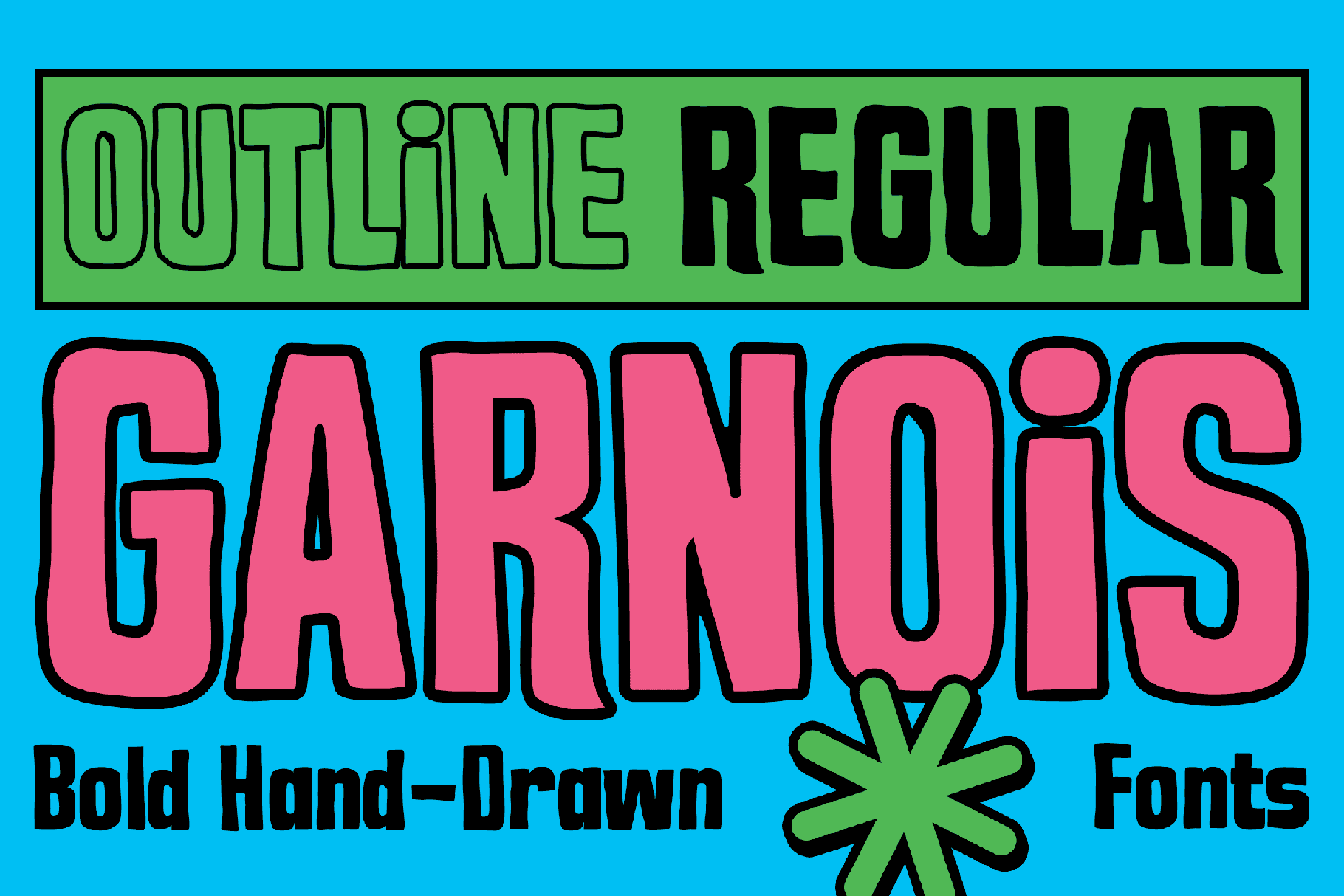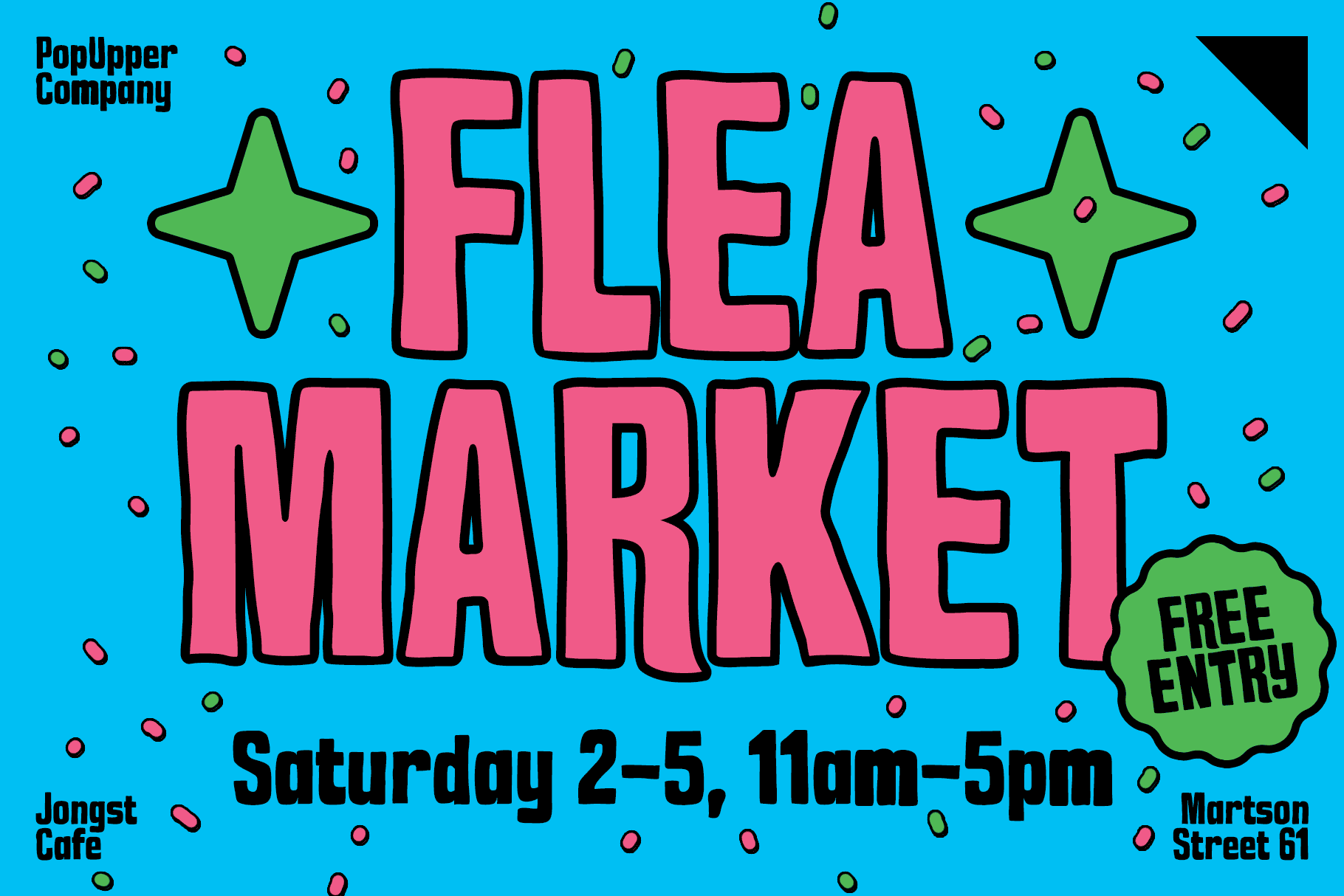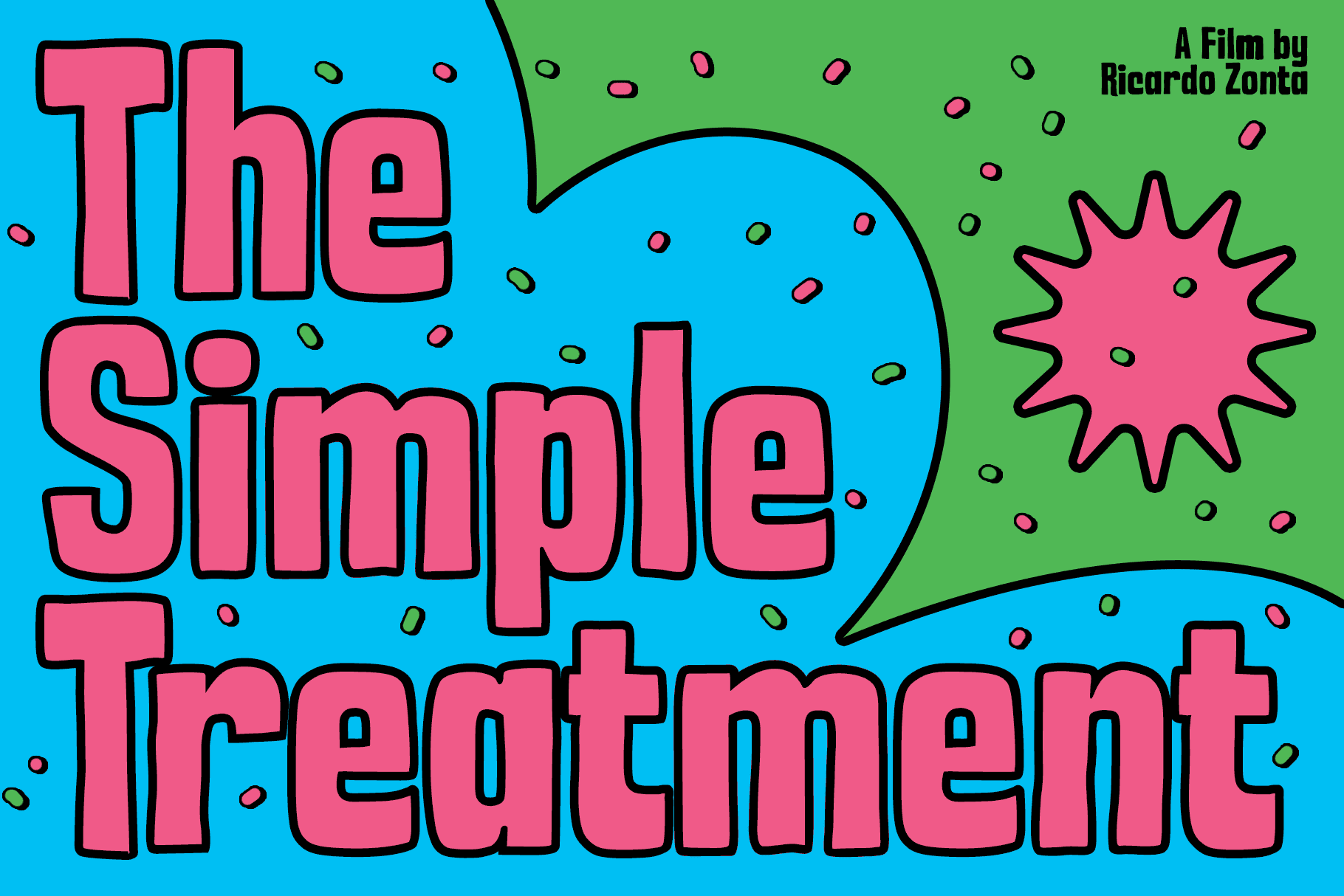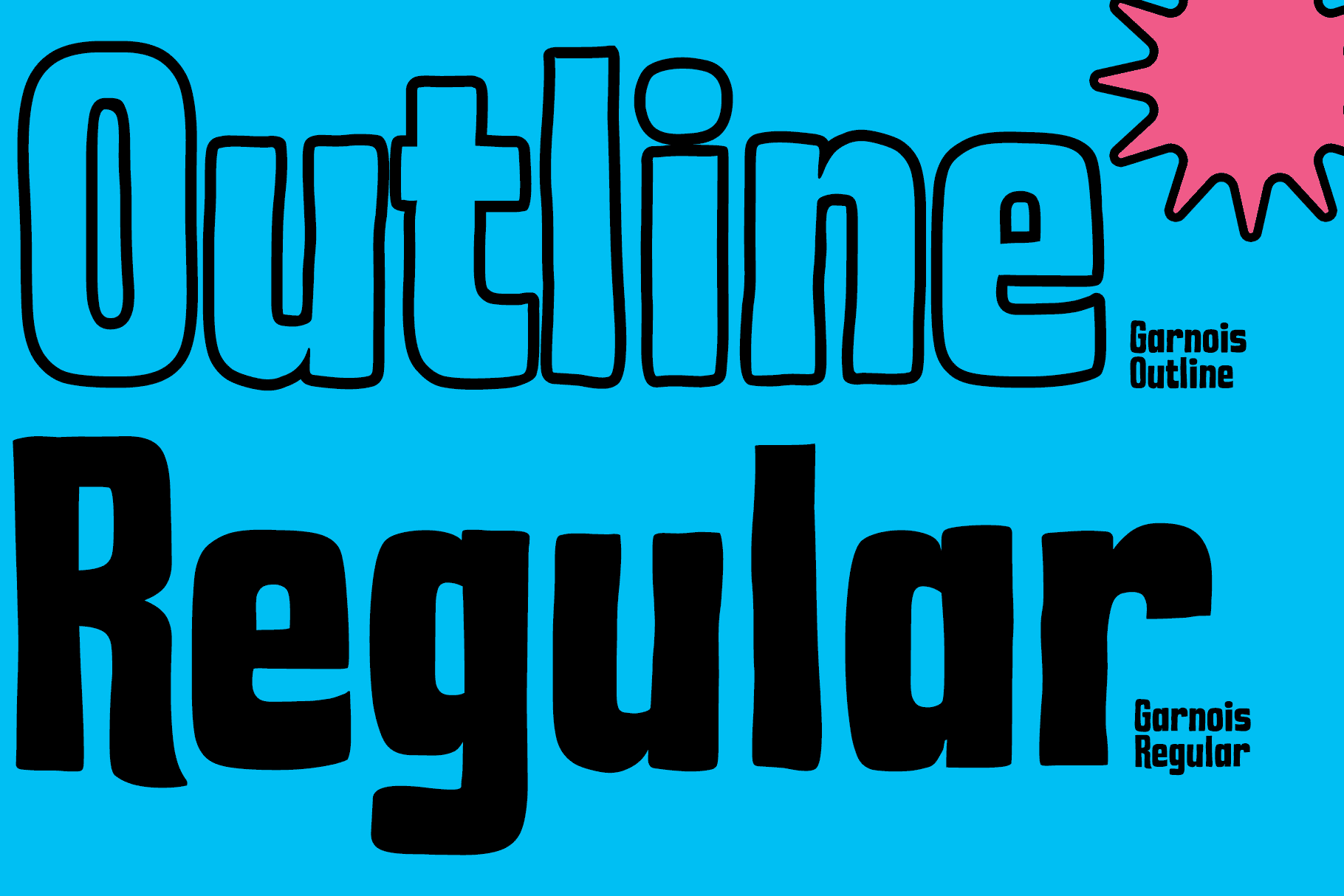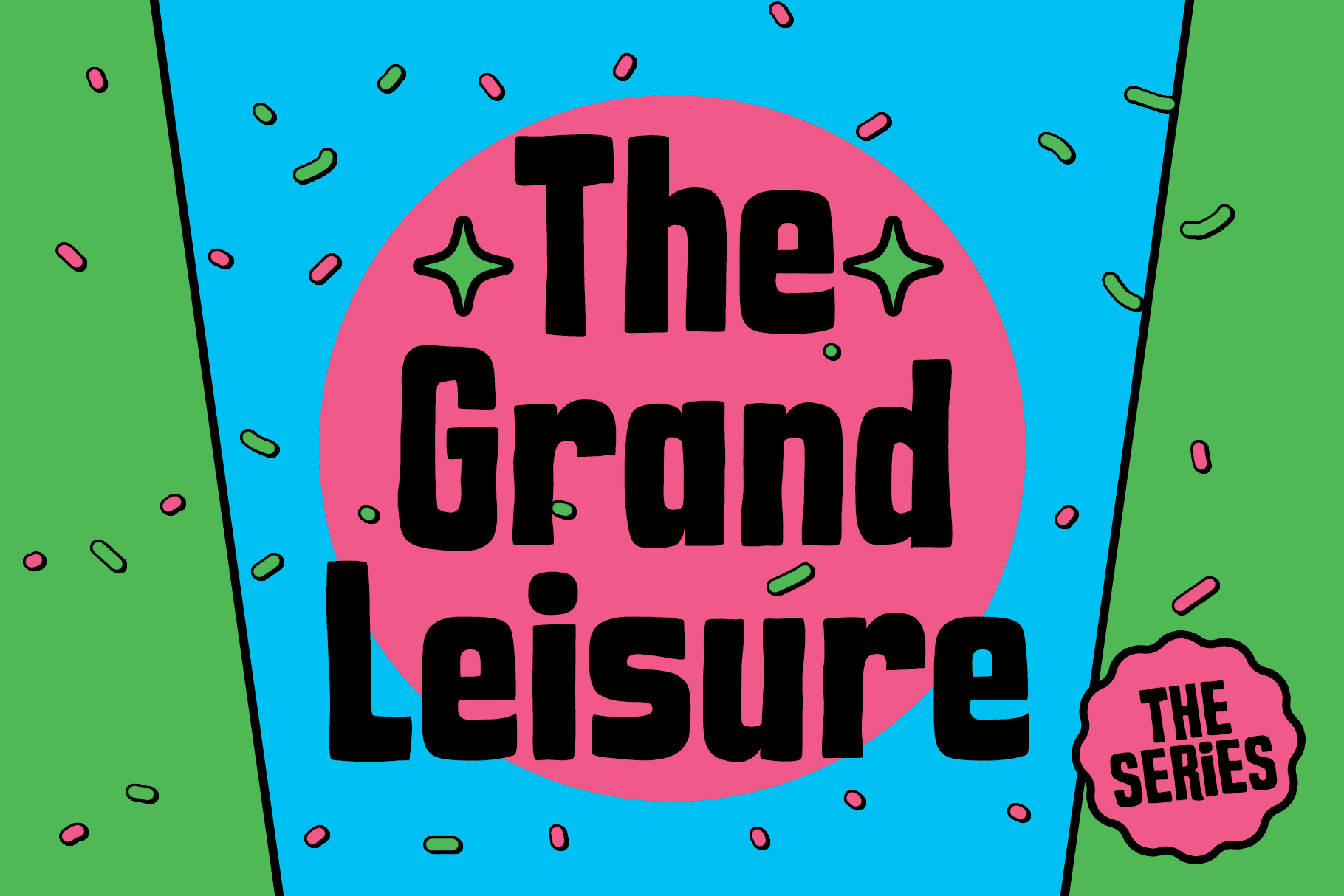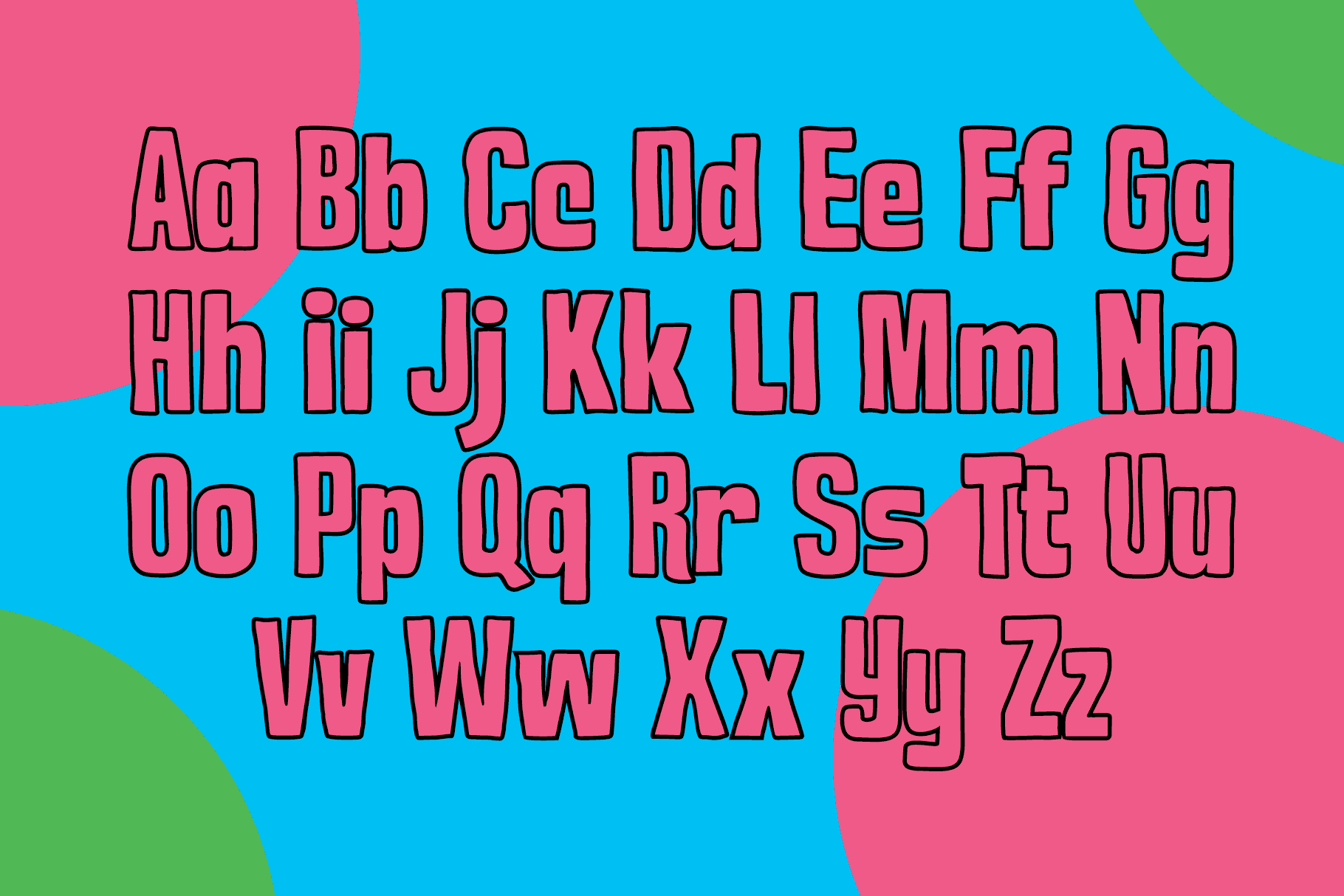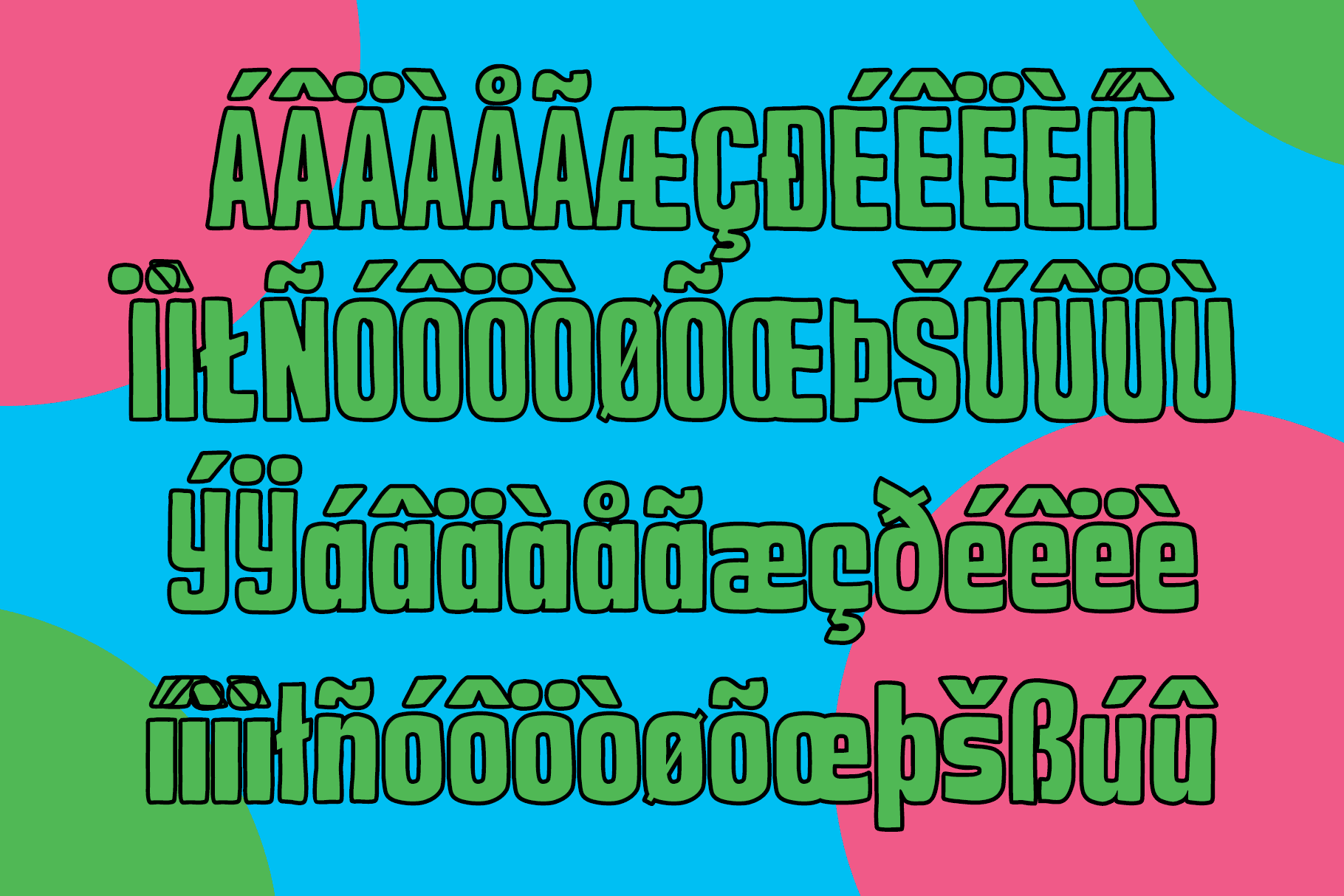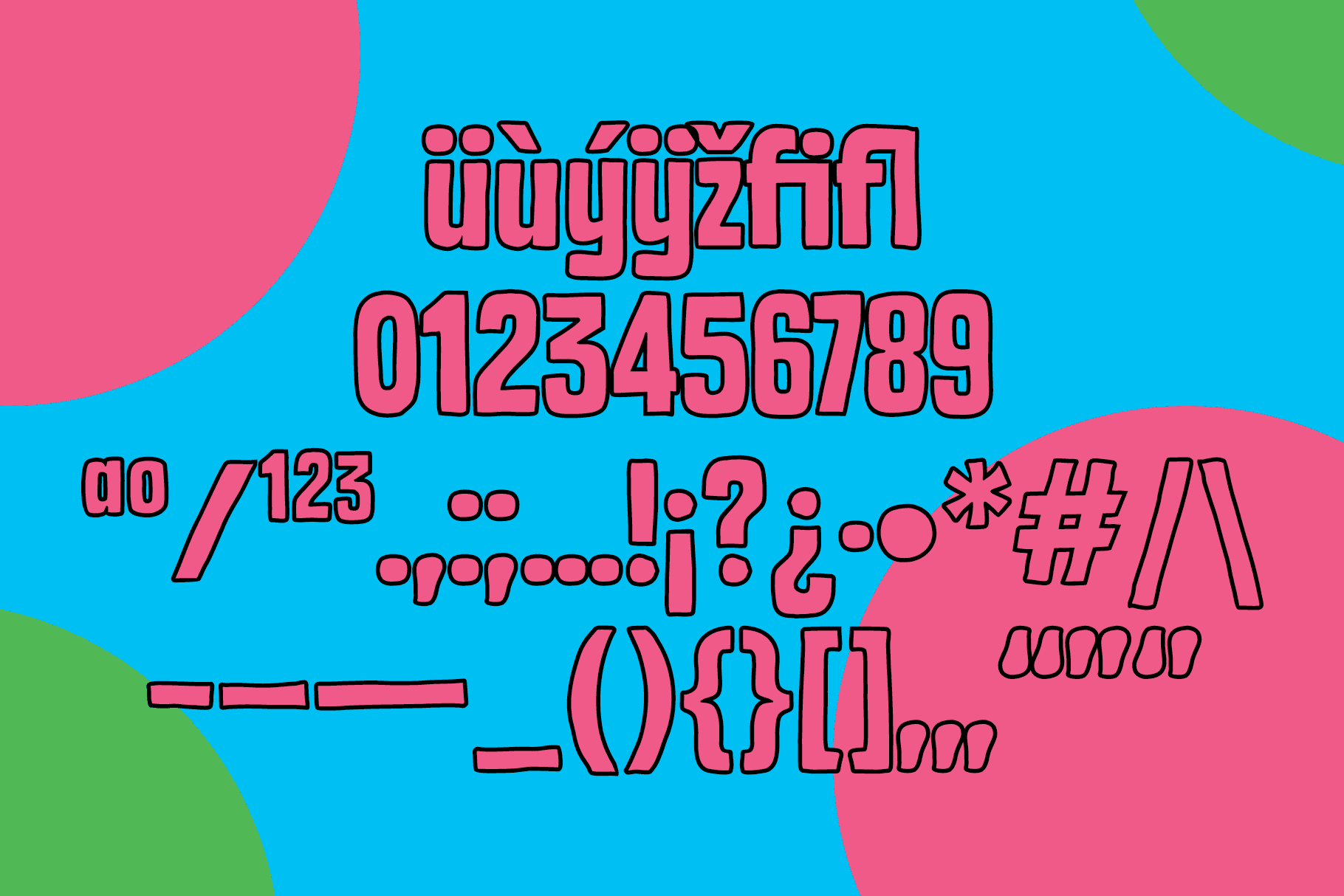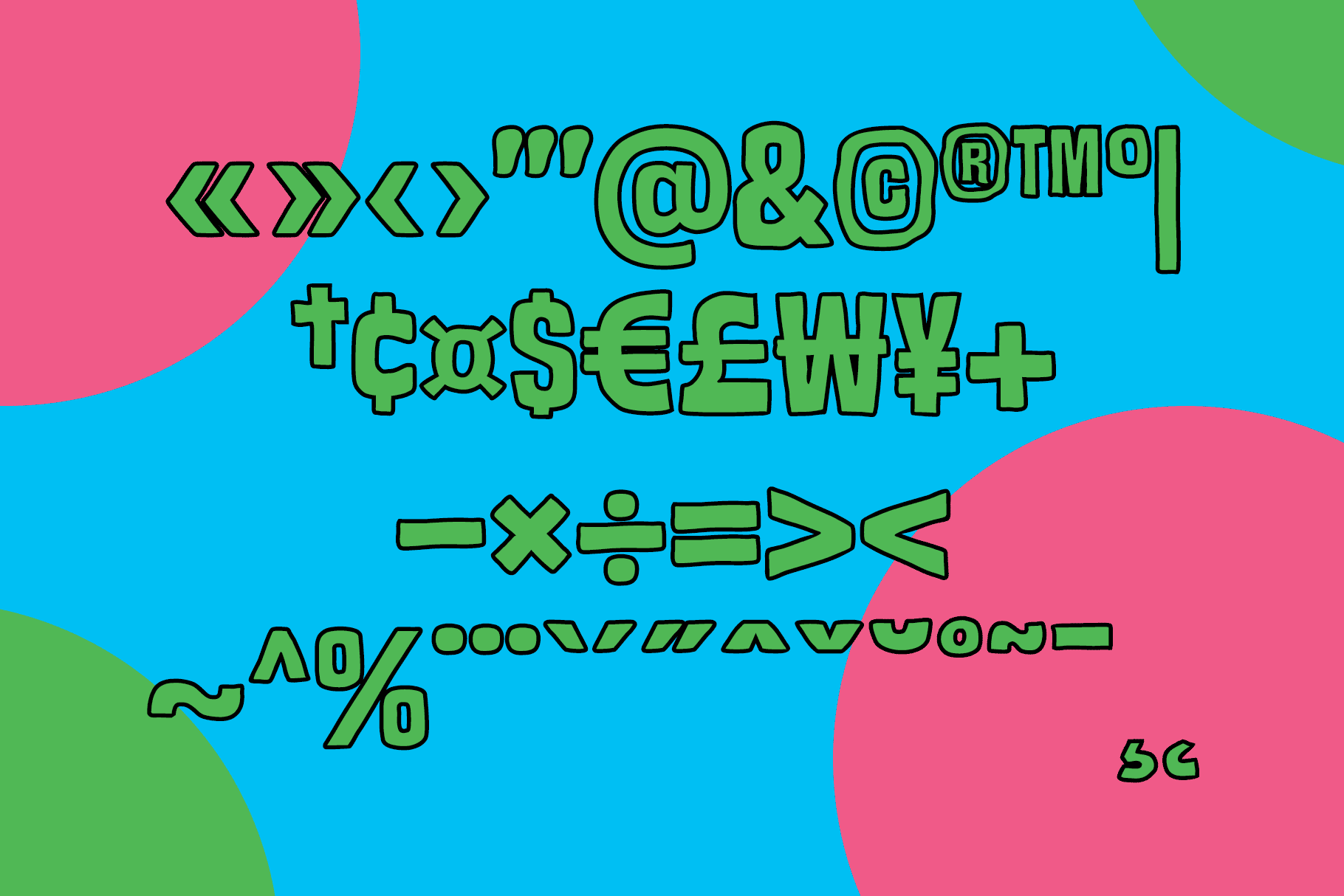
Garnois – Bold Hand Drawn Fonts
Give your designs a voice that refuses to be ignored. Garnois is a high-impact, hand-drawn font family designed for creators who believe bigger is always better. With its thick, organic curves and playful silhouette, Garnois captures the raw energy of DIY poster culture and modern pop aesthetics.
The magic happens in the layers. Garnois comes as a duo: Regular and Outline. Stack them up to create instant, professional-grade dimensional typography that leaps off the screen. Whether you’re building a brand for a Gen-Z startup, designing merch that sells out, or craft-heavy packaging, Garnois brings the “human touch” without losing the professional edge.
Key Features:
- Dynamic Duo: Includes Garnois Regular & Garnois Outline.
- Stackable System: Perfectly aligned for easy layering and multi-color effects.
- Hand-Crafted Soul: Every letter is weighted for maximum visual “thump.”
- Versatile: From festival posters to organic snack packaging.
It’s tactile, it’s trendy, and it’s ready for your next big project. From street-style posters to playful visual identities, Garnois is the bold choice for designers who aren’t afraid of a little extra personality.